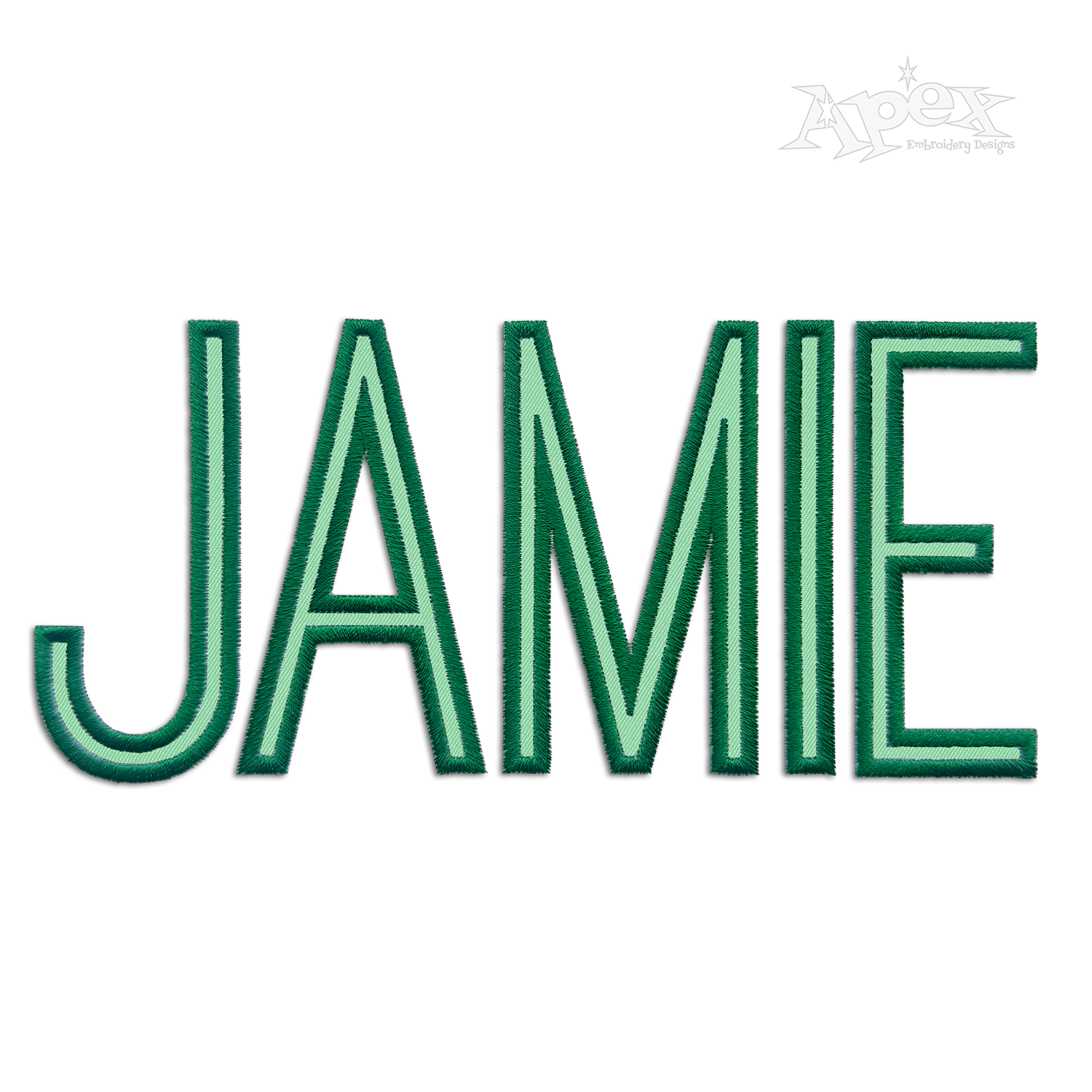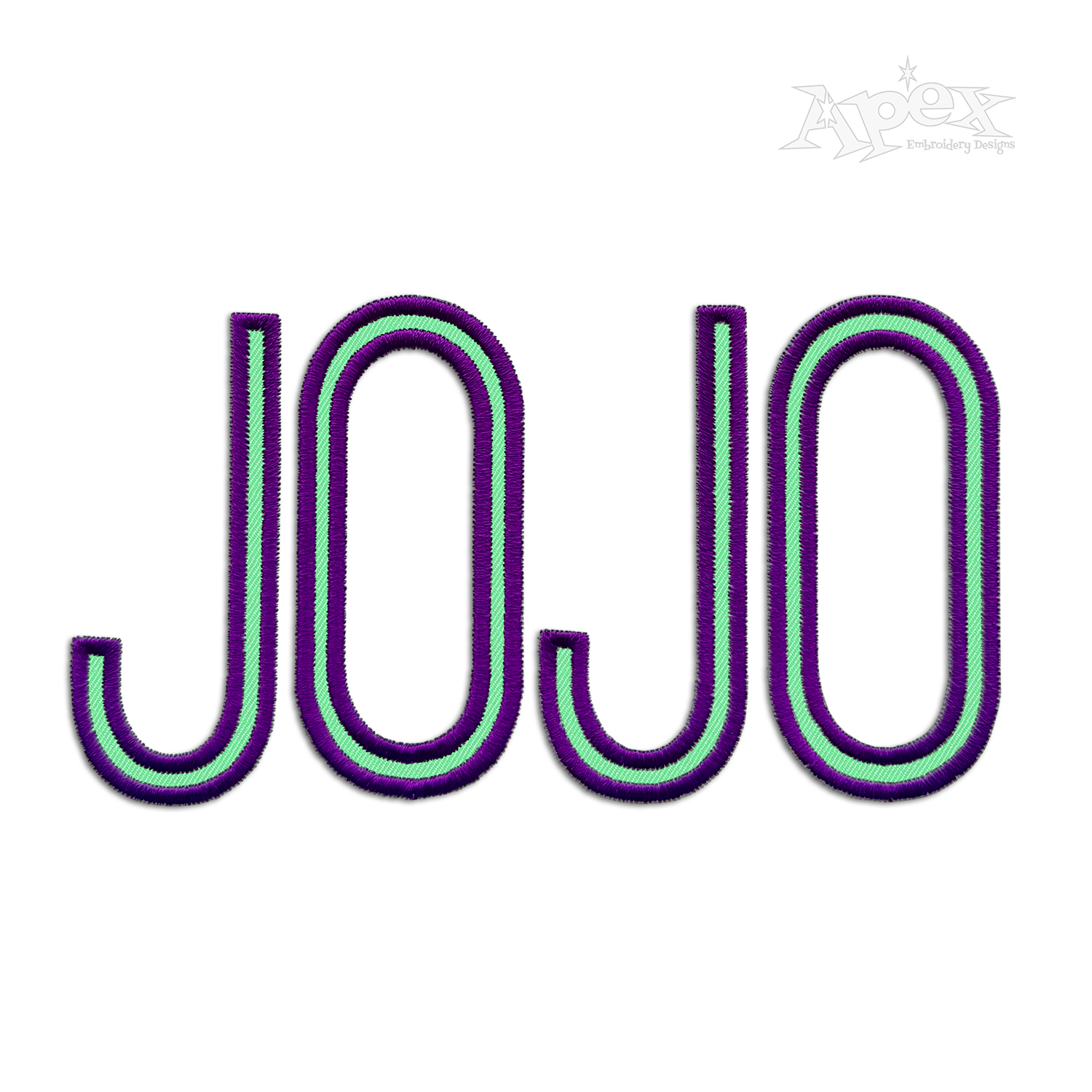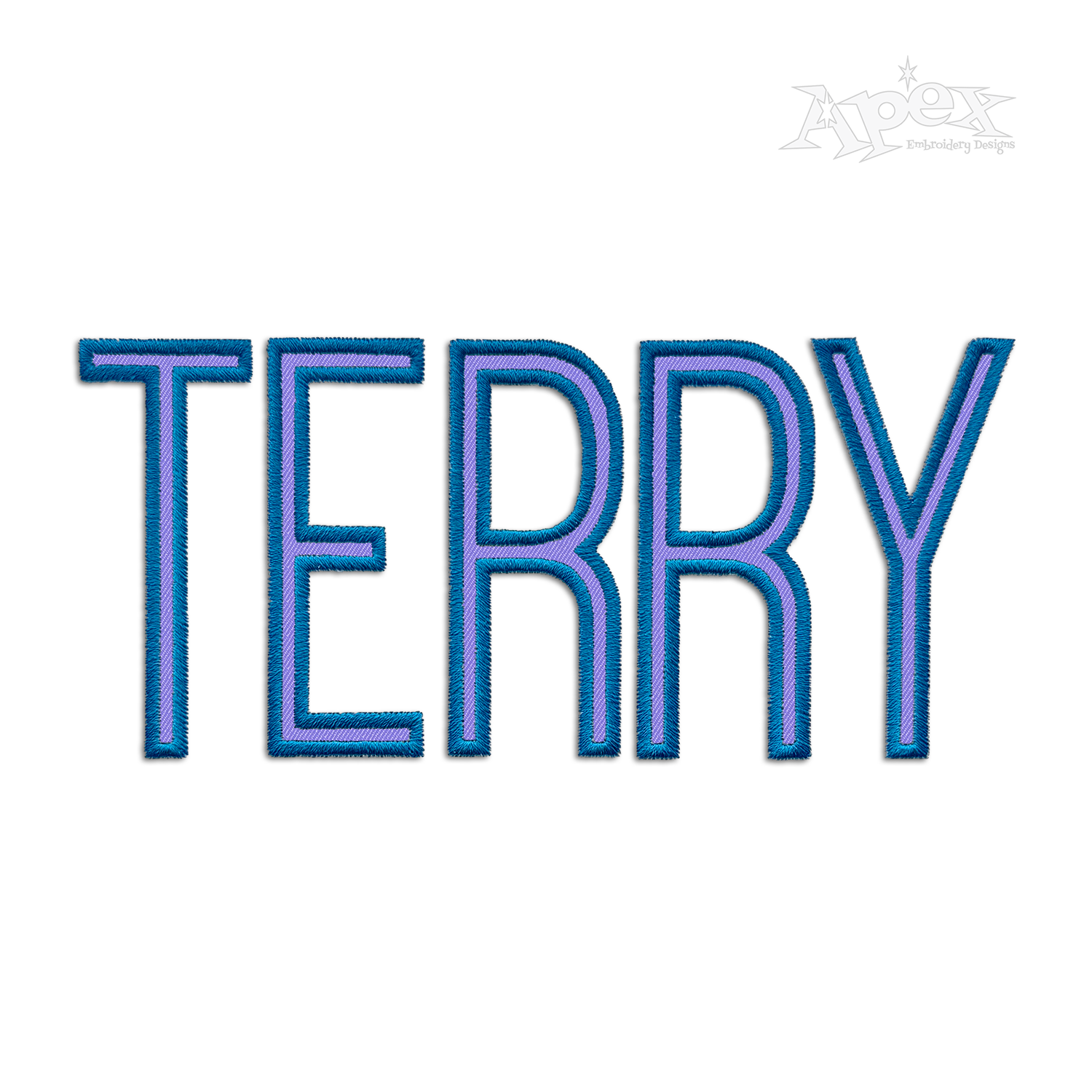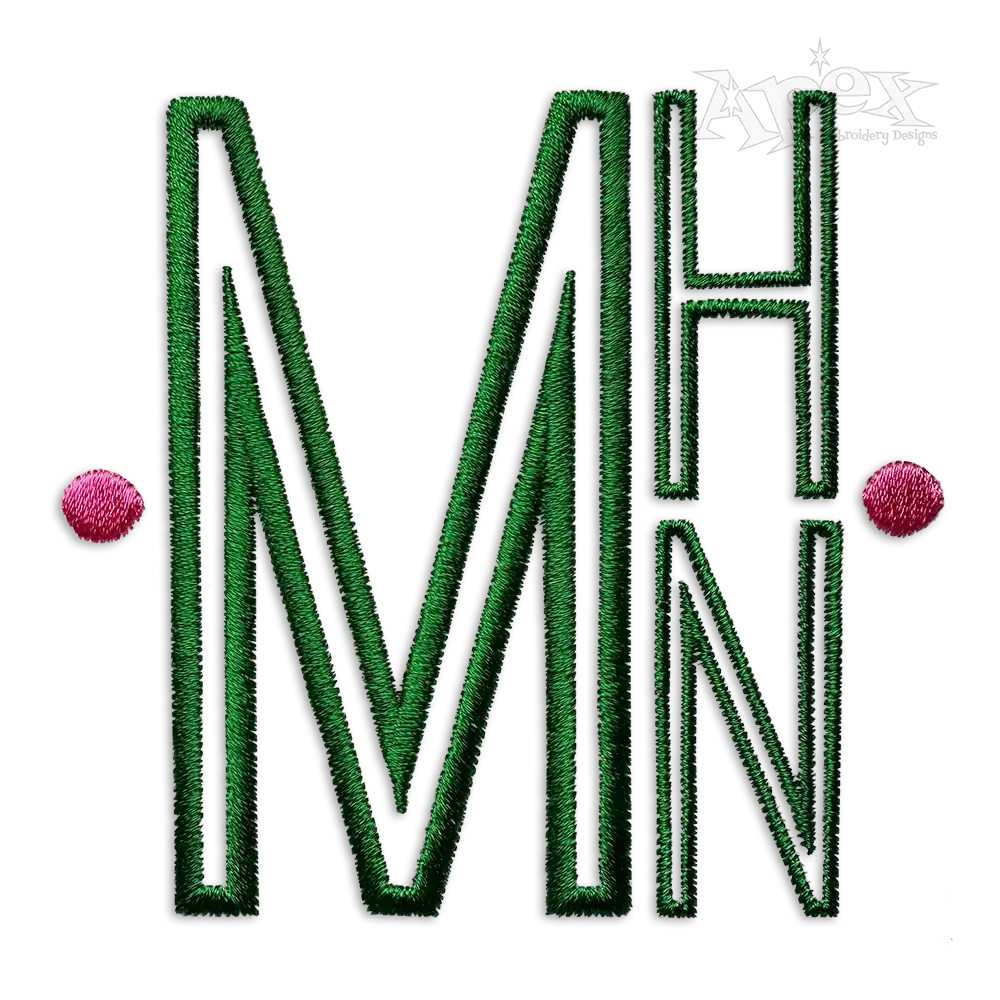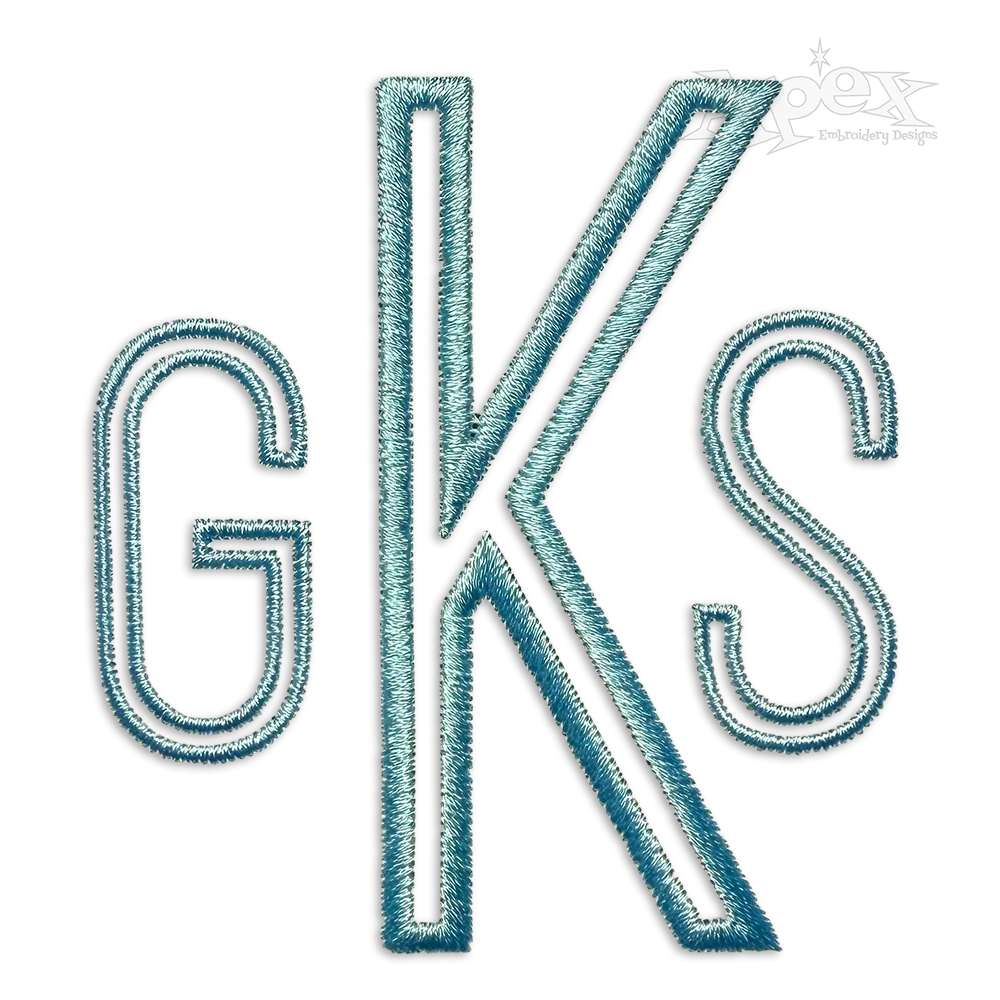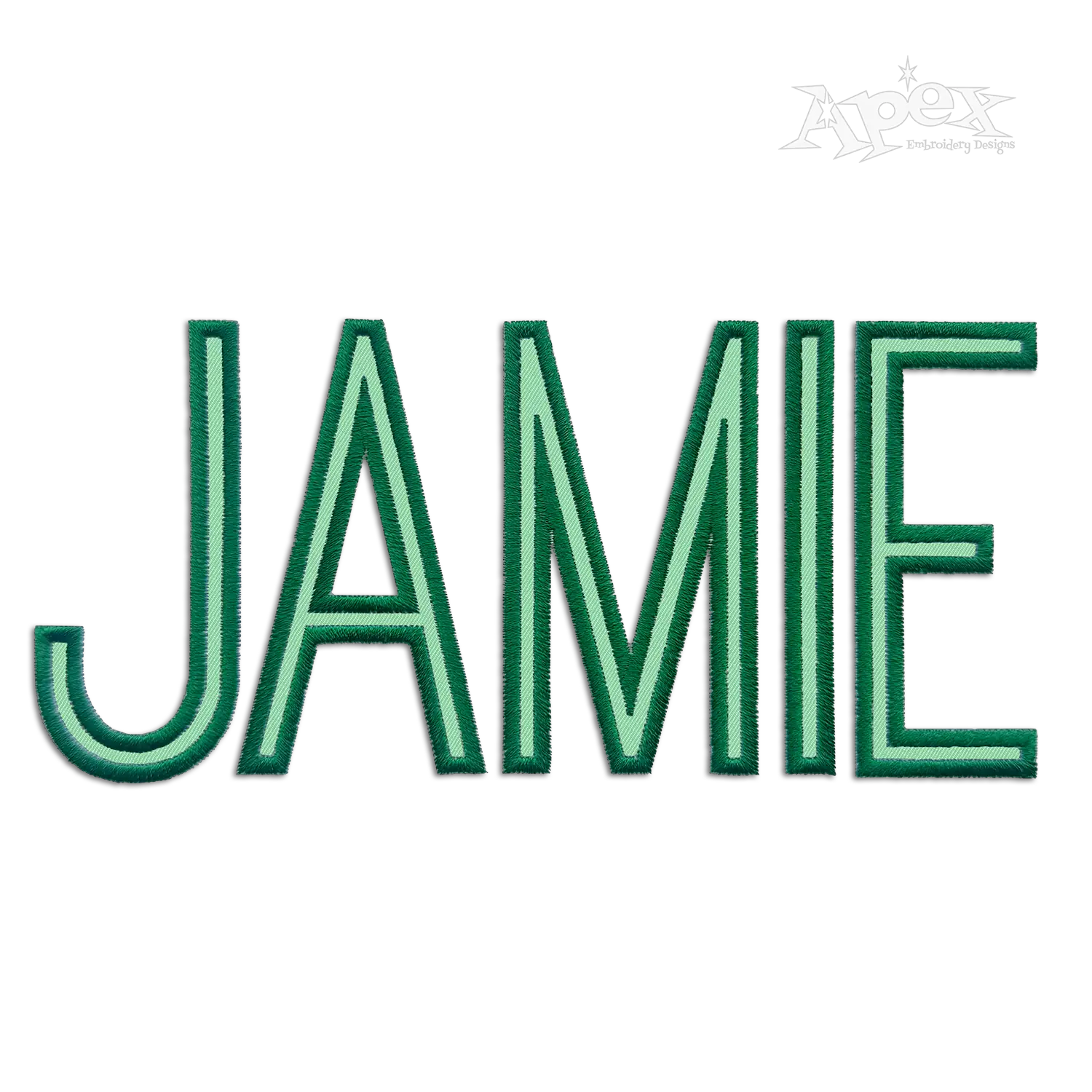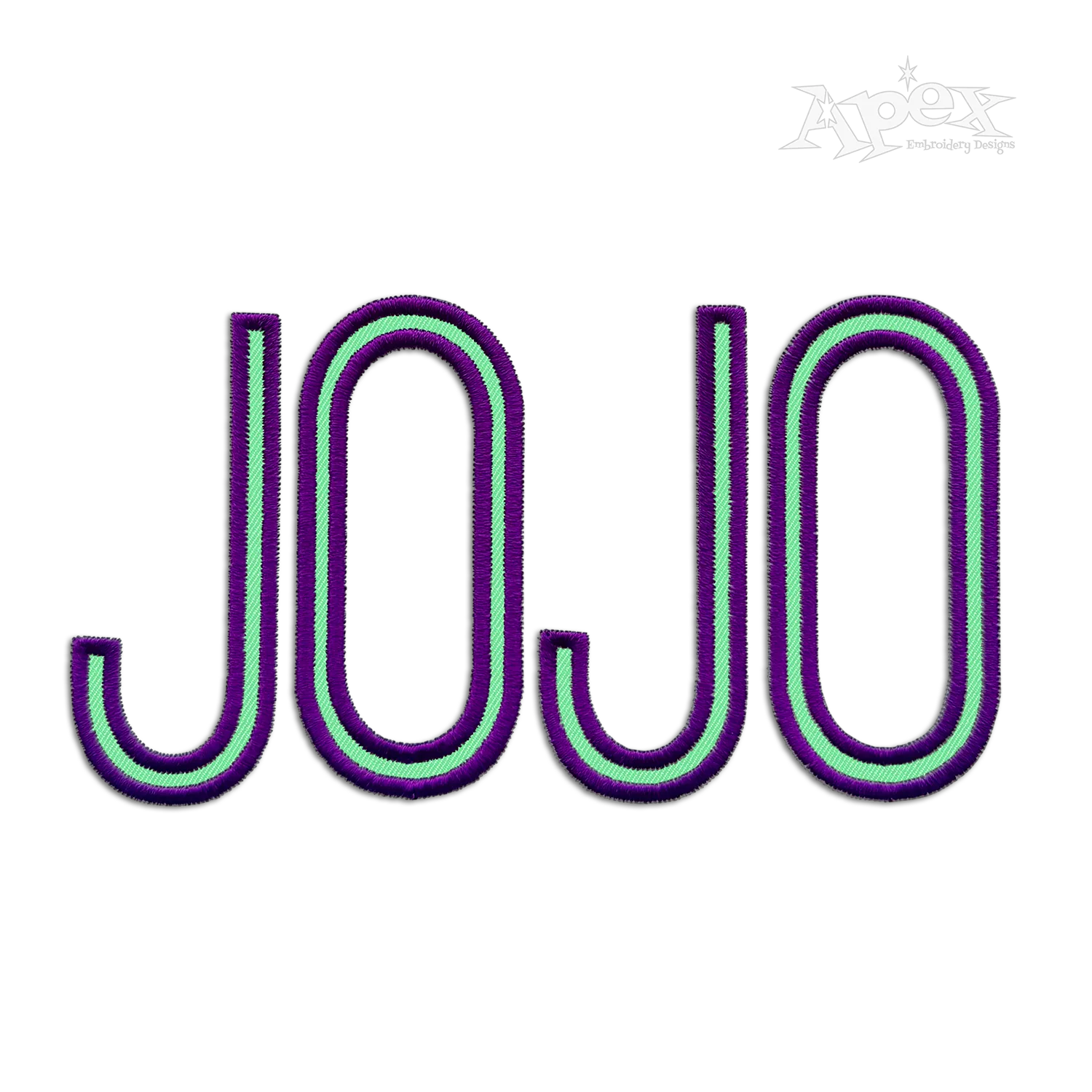
Collin Embroidery Font
When sketching the initial forms for the Collin Embroidery Font in our Apex studio, we envisioned a typography that bridges timeless collegiate dignity with the effortless grace of coastal resort wear. Every curve was drafted to celebrate the quiet luxury of bespoke monogramming—an alphabet devoid of unnecessary fuss, where disciplined letterforms and calculated thread angles command admiration. In an embroidery landscape often crowded with fragile flourishes, Collin asserts its presence through stately, light-reflecting satin stitch columns that lie flush against fine textiles, evoking the polished ambiance of a heritage club blazer or crisp, hand-laundered estate linens.
Collin Craft & Letterform Details
True artisan digitizing lives in the unseen subtleties—the gradual shift of satin stitch inclination, the microscopic underlay mapping, and the exact compensation for fabric pull. Collin was drafted with an architectural balance: sturdy verticals provide grounding weight, while softly transitioned junctions introduce an understated warmth. As your needle races across the fabric, the traveling stitches are carefully tucked beneath smooth surface satins, preventing show-through and eliminating unnecessary jump stitches.
Each letterform features engineered lead-ins and gentle turn angles that capture ambient light with rich, liquid luster. Rather than abruptly shifting needle angles at corner transitions, our digitizing balances each stitch to prevent ridge buildup, yielding letters that sit flat and smooth to the touch. Whether rendered on textured pique knit, crisp broadcloth, or plush terrycloth, Collin preserves its crisp silhouette and refined pedigree stitch after flawless stitch.